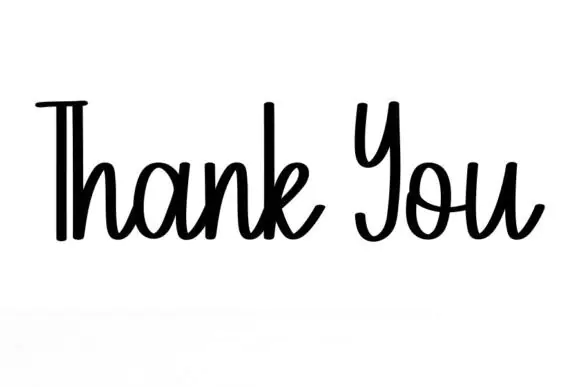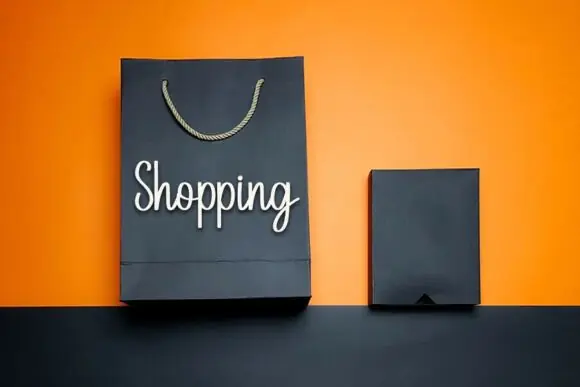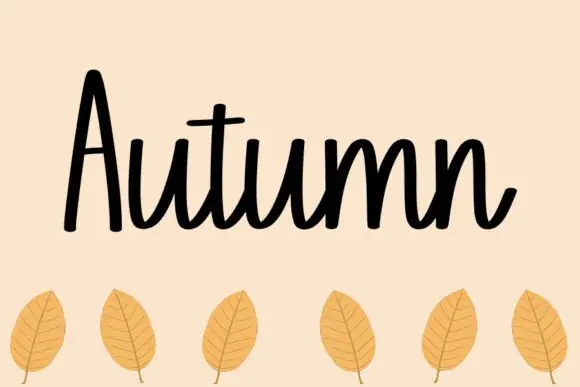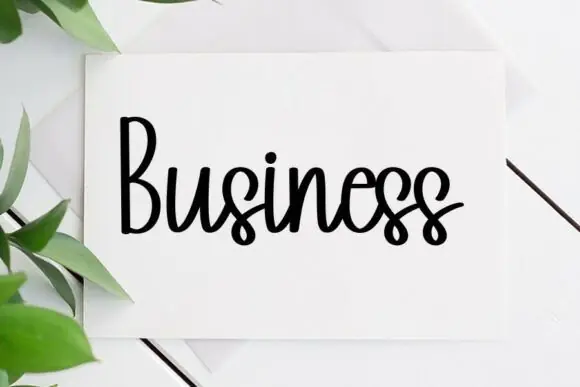
Handmade Font | Sweet Cursive Handwritten Script Typeface for Logos, Wedding Designs, Greeting Cards, Branding, Fashion & Elegant Projects
Create soft, joyful, and romantic designs with Handmade Font, a sweet cursive handwritten typeface designed to bring a gentle and elegant touch to your creative projects. Its smooth handwritten style makes it perfect for designs that need a fancy, graceful, and personal look while still feeling casual and friendly.
Handmade Font is ideal for designers, wedding creators, boutique brands, small business owners, crafters, digital sellers, and print-on-demand creators who want to add a stylish handwritten feel to their work. This font works beautifully for branding, logos, wedding designs, greeting cards, fashion projects, lookbooks, marketing promotions, invitations, product labels, packaging, quote designs, and social media graphics.
Its romantic and elegant personality makes it suitable for both formal and everyday creative designs. Whether you are creating a wedding invitation, boutique logo, greeting card, fashion layout, or promotional graphic, Handmade Font helps your typography feel warm, charming, and beautifully polished.
• Logo design
• Branding and business identity
• Wedding invitations
• Wedding stationery
• Greeting cards
• Fashion designs
• Lookbooks
• Marketing promotions
• Product labels
• Packaging designs
• Quote designs
• Cricut and Silhouette crafts
• Romantic digital artwork
Design Style:
Sweet, cursive, handwritten, gentle, joyful, romantic, elegant, fancy, casual, feminine, graceful, stylish, soft, and charming.
Use Handmade Font to give your projects a beautiful handwritten personality and create typography that feels romantic, elegant, and easy to love.